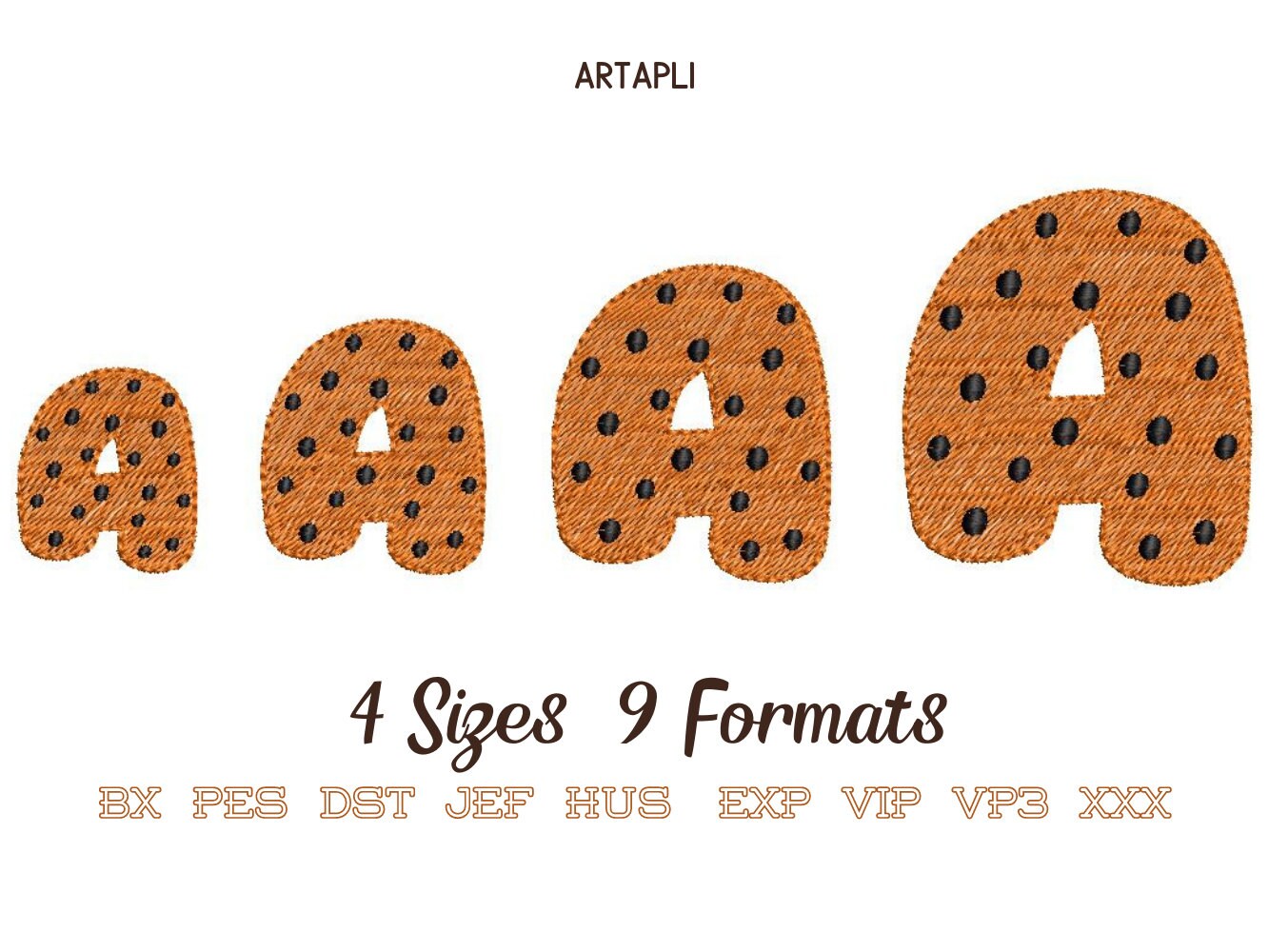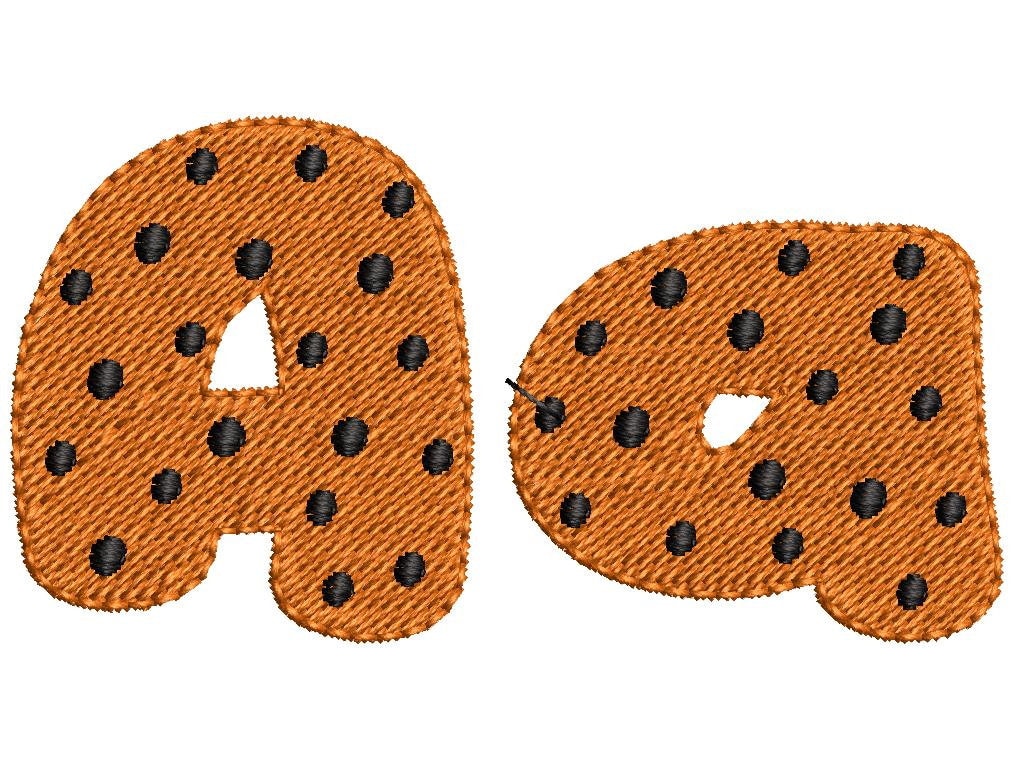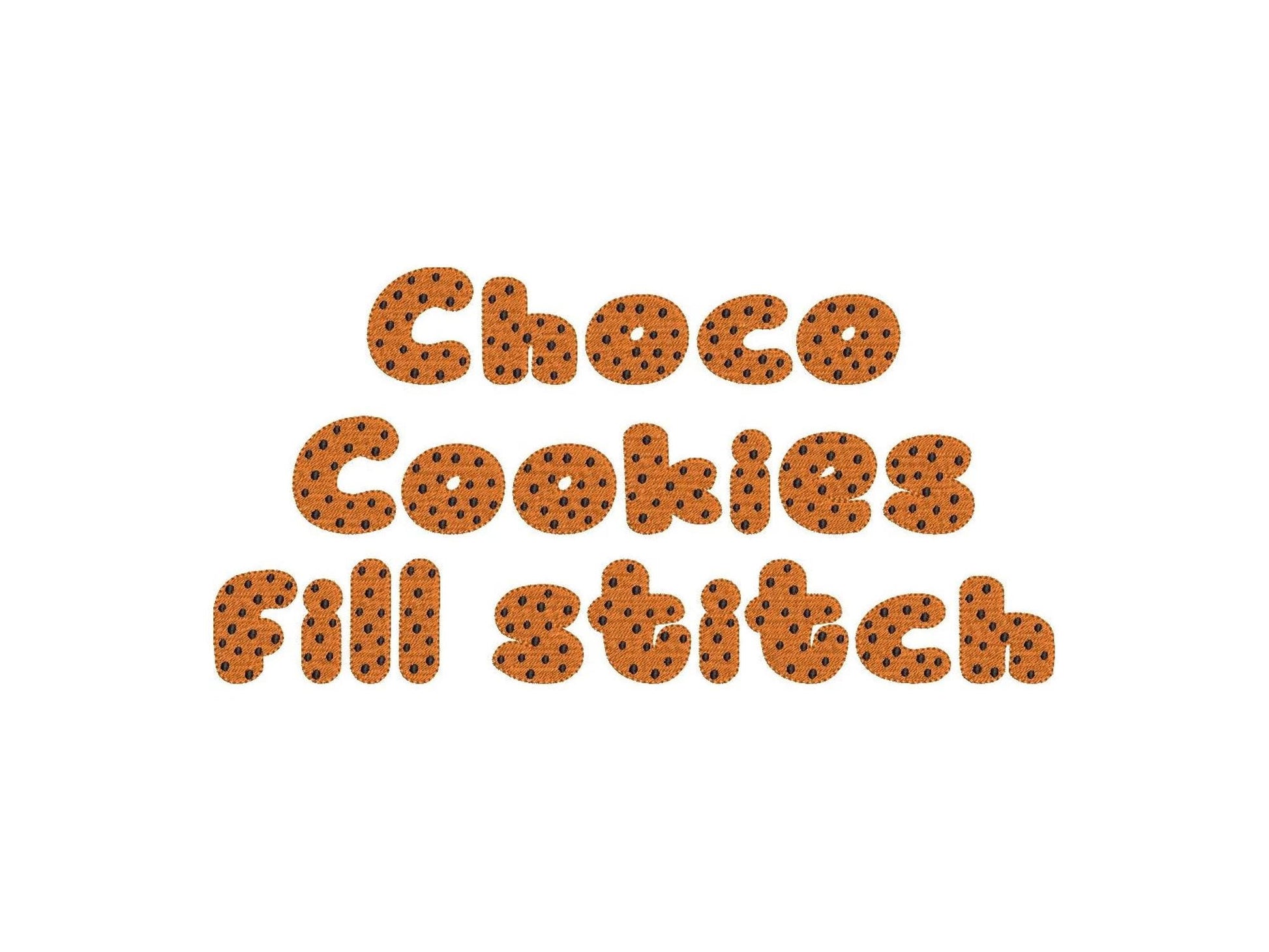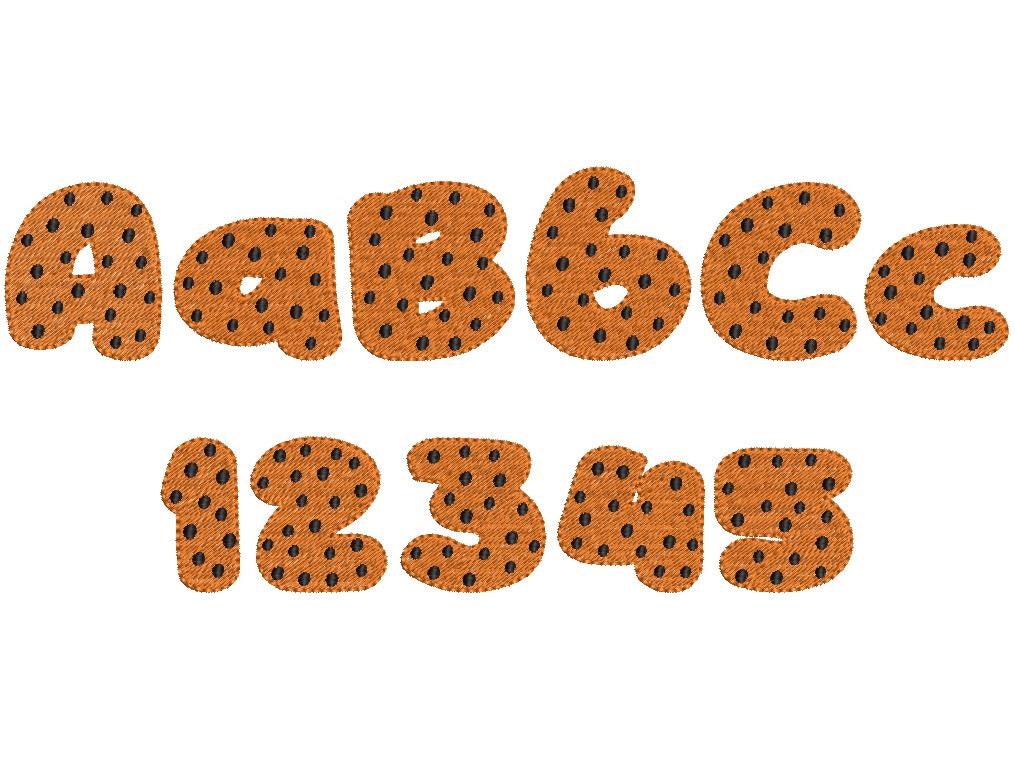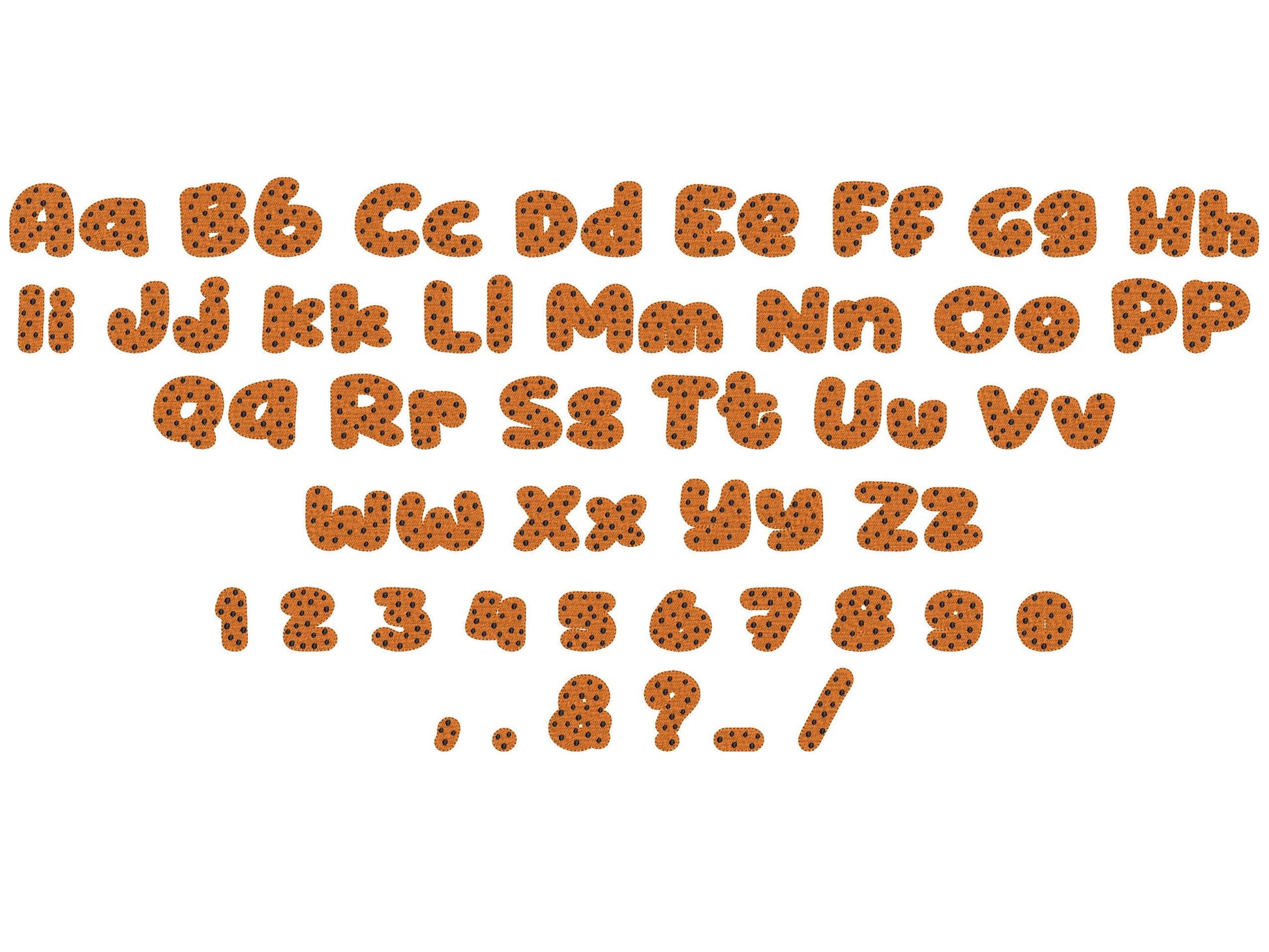
Choco Cookie Font Fill Stitch
Or click to open the linkA chocolate cookie font in fill stitch, a fun kids' alphabet for names on shirts, aprons and bakery gifts.
Uppercase and lowercase letters, numbers and punctuation in four sizes: 1.4, 1.6, 2 and 2.5 inches.
- Chocolate cookie fill stitch font
- Uppercase, lowercase, numbers 0-9, punctuation